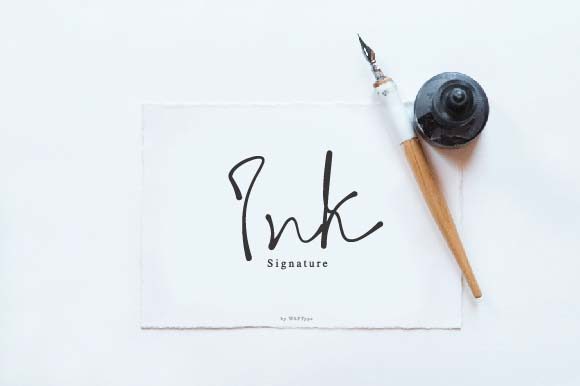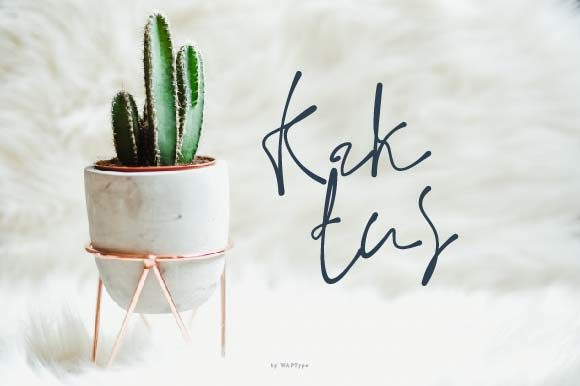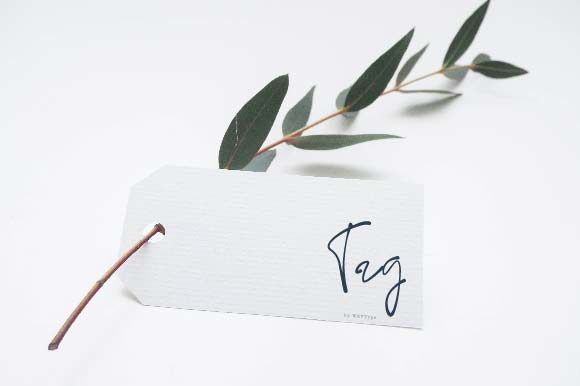
Ink Signature Font
About Ink Signature Font
Ink Signature is a casual and friendly font, created by using a brush pen. Clean and a little bit quirky, this font is the perfect fit for all of your logos, branding, social media, and crafty DIY projects